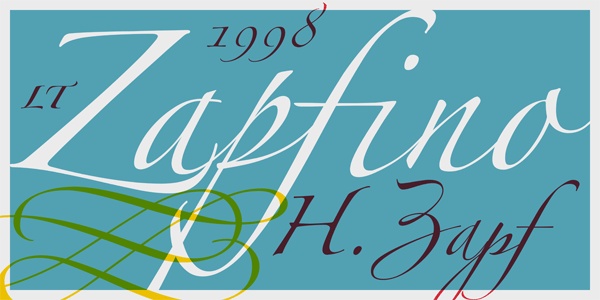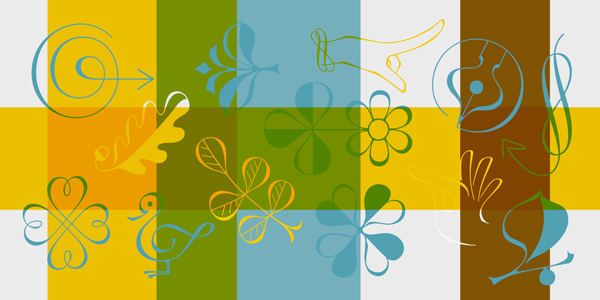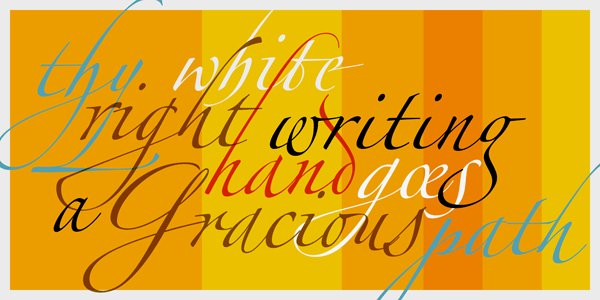
Linotype Zapfino font family, a calligraphy script typeface by Hermann Zapf.
Hermann Zapf originally started to work on this fully calligraphic typeface in 1993 with technical support by David Siegel and Gino Lee. Font foundry Linotype completed this typeface with initial PostScript and TrueType versions as a family of 6 styles. Today’s Apple Advanced Typography (AAT) and Open Type versions were developed by a team of Tiro Typeworks for the Linotype Library.
This new version has been equipped with lots of features to meet current typographic needs. Linotype Zapfino includes 4 basic alphabets with diverse stylistic alternates. In addition, it comes with diacritic characters for most Latin languages of Central and Eastern Europe as well as Baltic countries and Turkey. The Linotype Zapfino font family is available as both desktop font and webfont. In addition to the basic styles, the family also includes a great set of ligatures and ornaments. Linotype Zapfino is a good choice for any festive typography that requires a calligraphic script typeface. To get additional tips on its use, just follow the link below.